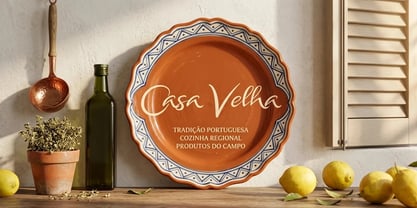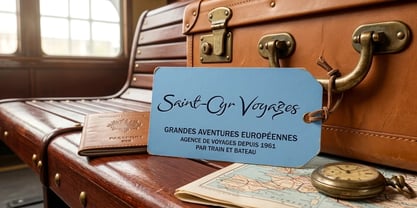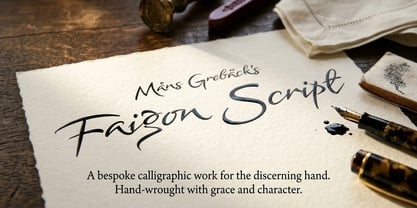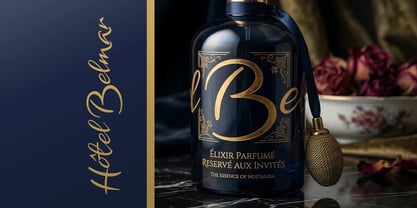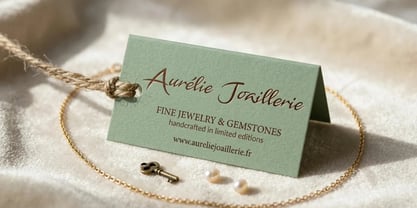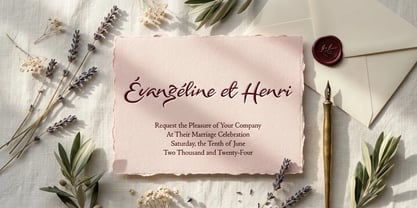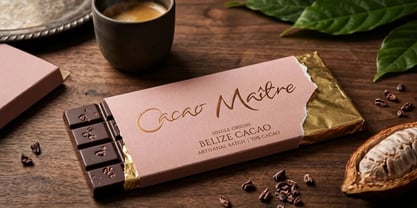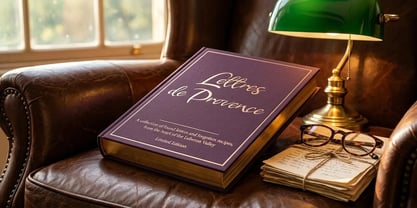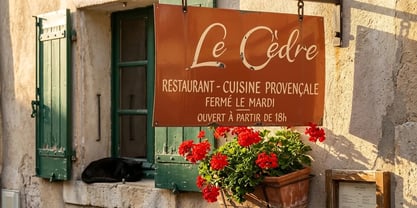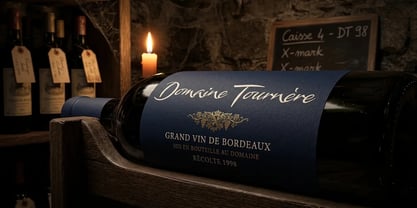
Faigon Script
by Mans Greback
The Faigon Script Font Family was designed by Måns Grebäck and published by Mans Greback. Faigon Script contains 4 styles and family package options. More about this family
Faigon Script is a polished italic handwriting with a delicate movement.
The letters connect with a relaxed but confident hand — capitals open into broad confident strokes, lowercase joins move forward without overdoing the loops, and the slant keeps the line travelling at an easy, deliberate pace. The texture sits closer to thoughtful longhand than to studio calligraphy.
You can picture it across the inside cover of a museum exhibition catalogue, or on the small printed card slipped into a wedding invitation.
The font is built with advanced functionality and guaranteed top-notch quality, containing stylistic and contextual alternates, ligatures and more automatic and manual features; all to give you full control and customizability.
It has extensive lingual support, covering all Latin-based languages, from North Europa to South Africa, from America to South-East Asia. It contains all characters and symbols you'll ever need, including all punctuation and numbers.